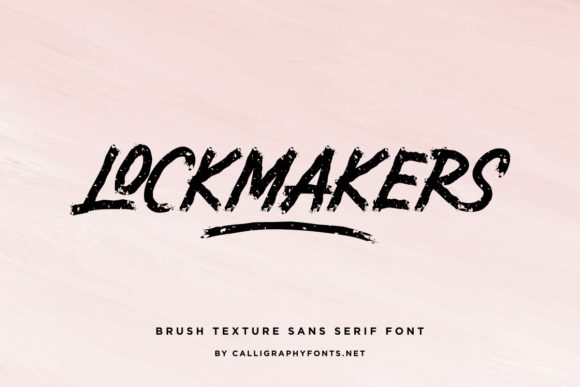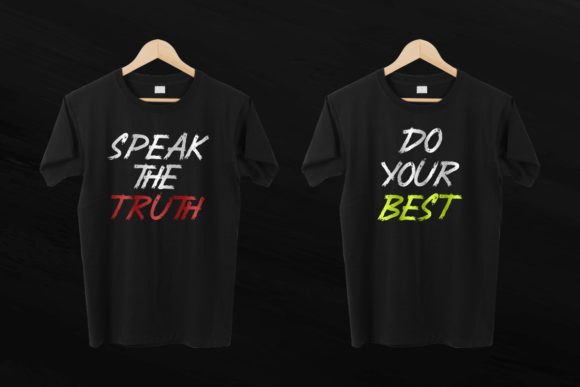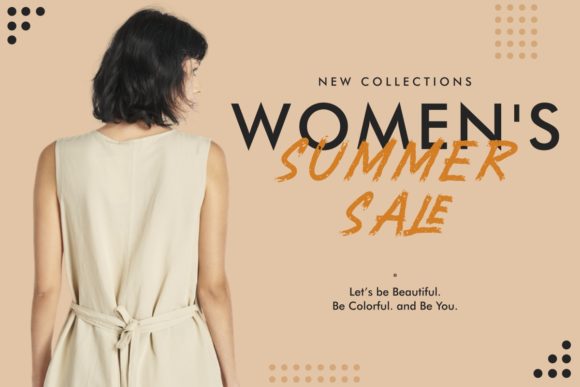
Introduction to Lockmakers Font
Remember that moment when you’re working on a design project and you’re struggling to find the perfect font to bring it all together? You’ve tried countless options, but nothing seems to capture the essence of your creative vision. Well, we’ve got some great news for you: the Lockmakers Font is here to change the game!
This stunning textured brush display font is designed to add a touch of rugged elegance to your designs, making them truly come alive. With its high-quality, chunky letters, Lockmakers Font is perfect for designers looking to add some visual interest to their projects. Whether you’re working on a branding project, a creative campaign, or simply a personal design challenge, this font is sure to be a valuable addition to your design resource arsenal.
Key Features of Lockmakers Font
- High-quality design: Lockmakers Font is a premium design resource ideal for creative projects.
- Transparent background: The font’s transparent background allows for seamless integration into various design elements.
- High-resolution design: The font is designed at 300 DPI (dots per inch) for crisp and clear display in high-resolution designs.
- Unique characteristics: Lockmakers Font features a unique blend of modern and vintage elements, making it perfect for creative projects that require a distinctive touch.
Honest Review: Lockmakers Font
I recently stumbled upon Lockmakers Font while searching for a design resource to elevate my latest creative project. As a designer, I’m always on the lookout for high-quality fonts that can add an extra layer of sophistication to my work.
- ✨ One of the things that stood out to me about Lockmakers Font was its unique aesthetic. The font’s distressed texture and vintage feel make it perfect for creating a retro-inspired design.
- ✨ Another benefit of Lockmakers Font is its versatility. I was able to use it for a wide range of projects, from logos to typography-heavy layouts, without any issues.
While Lockmakers Font is a solid choice for designers, there are a few limitations to keep in mind:
- ⚠️ The font’s transparent background can sometimes be a bit tricky to work with, especially when using it with busy or complex backgrounds.
Lockmakers Font
Tips for Getting the Most Out of Lockmakers Font
To get the most out of Lockmakers Font, use it with a transparent background to create a high-quality design. You can also experiment with different font sizes and styles to add visual interest to your project. Additionally, use the font in combination with other design elements, such as images and graphics, to create a unique and eye-catching design.
Common Use Cases for Lockmakers Font
Lockmakers Font is commonly used in design projects that require a high-quality, professional-looking font. Some common use cases include business cards, brochures, and posters. You can also use the font in digital design projects, such as website headers and social media graphics.